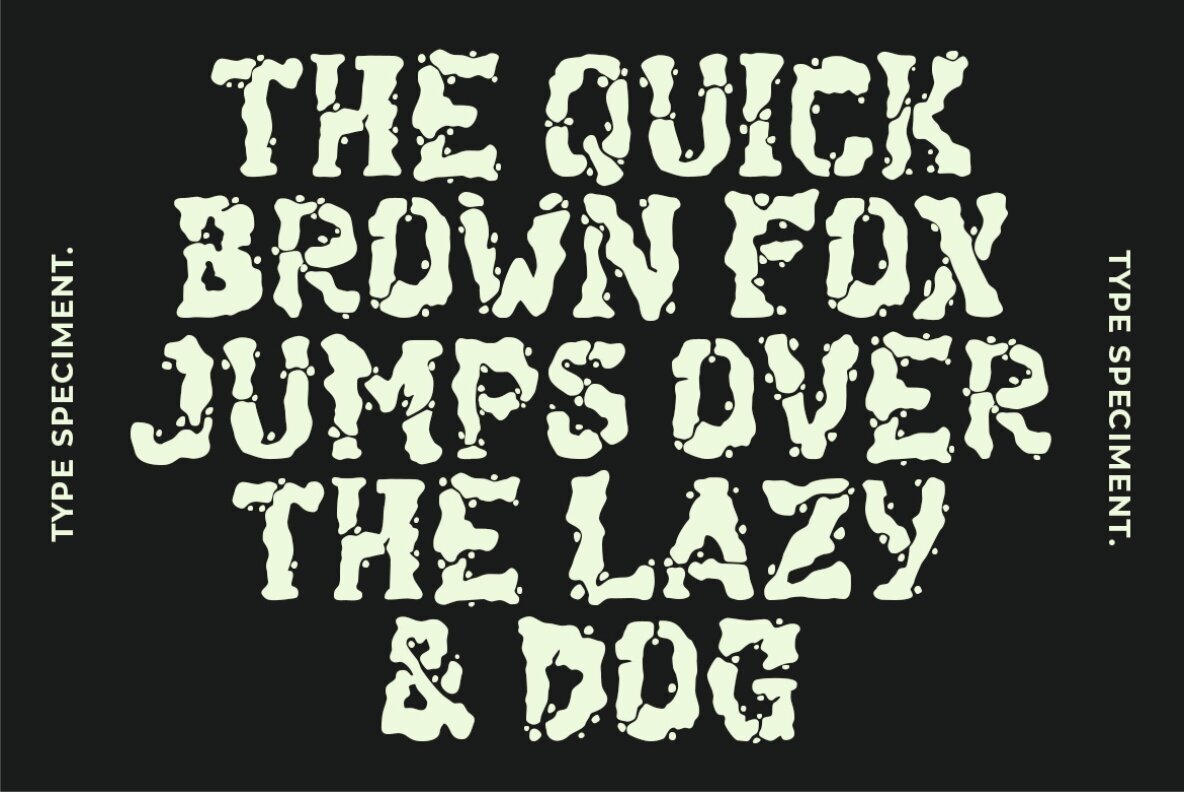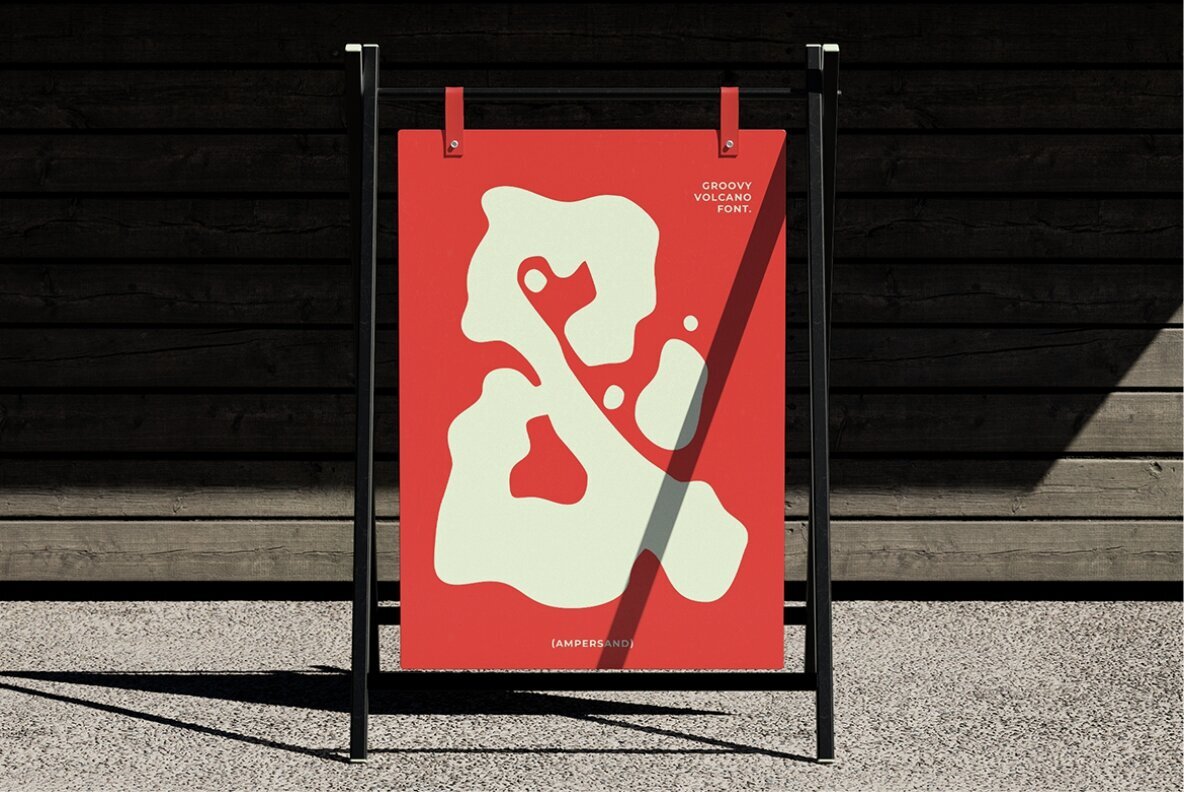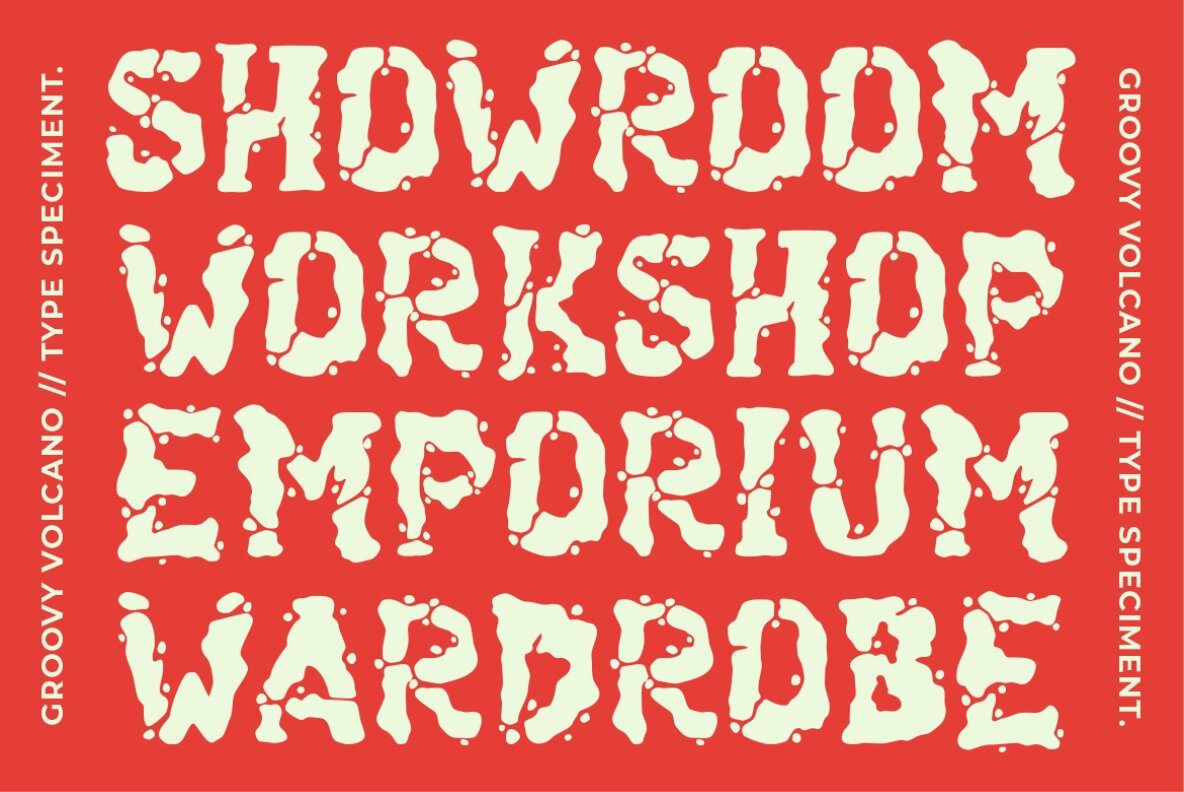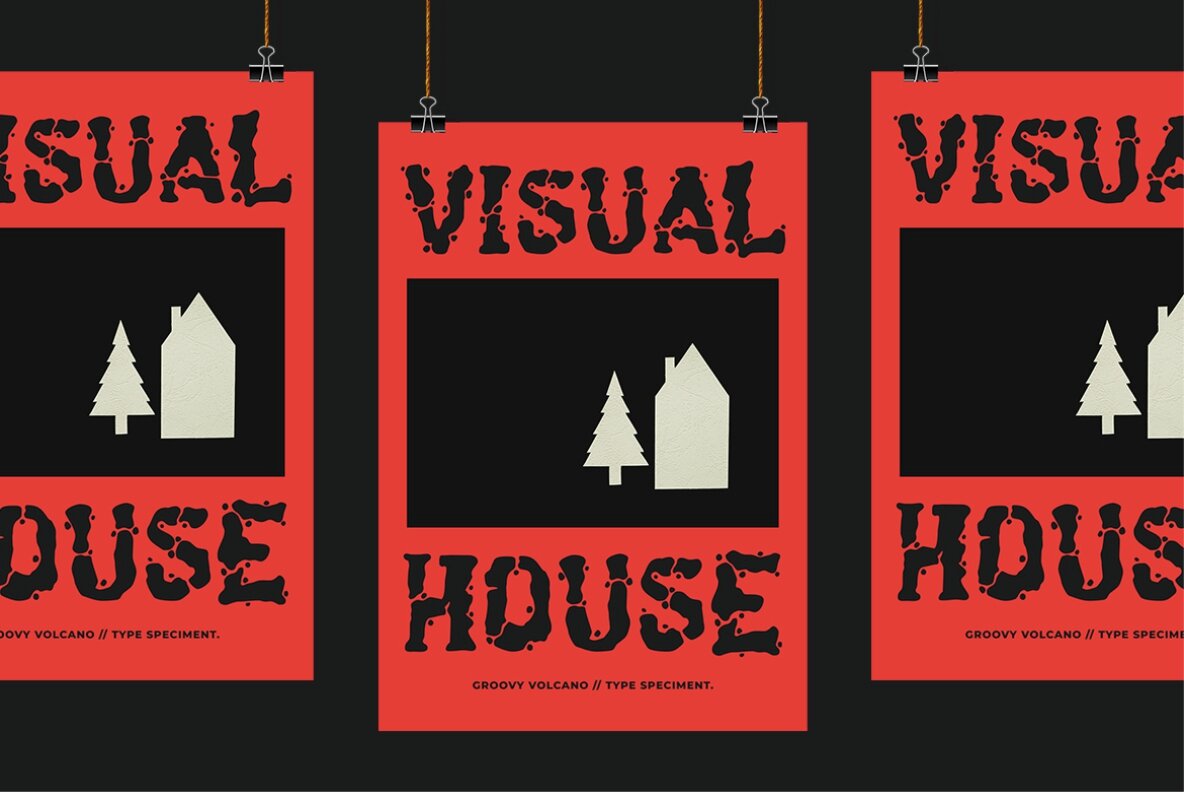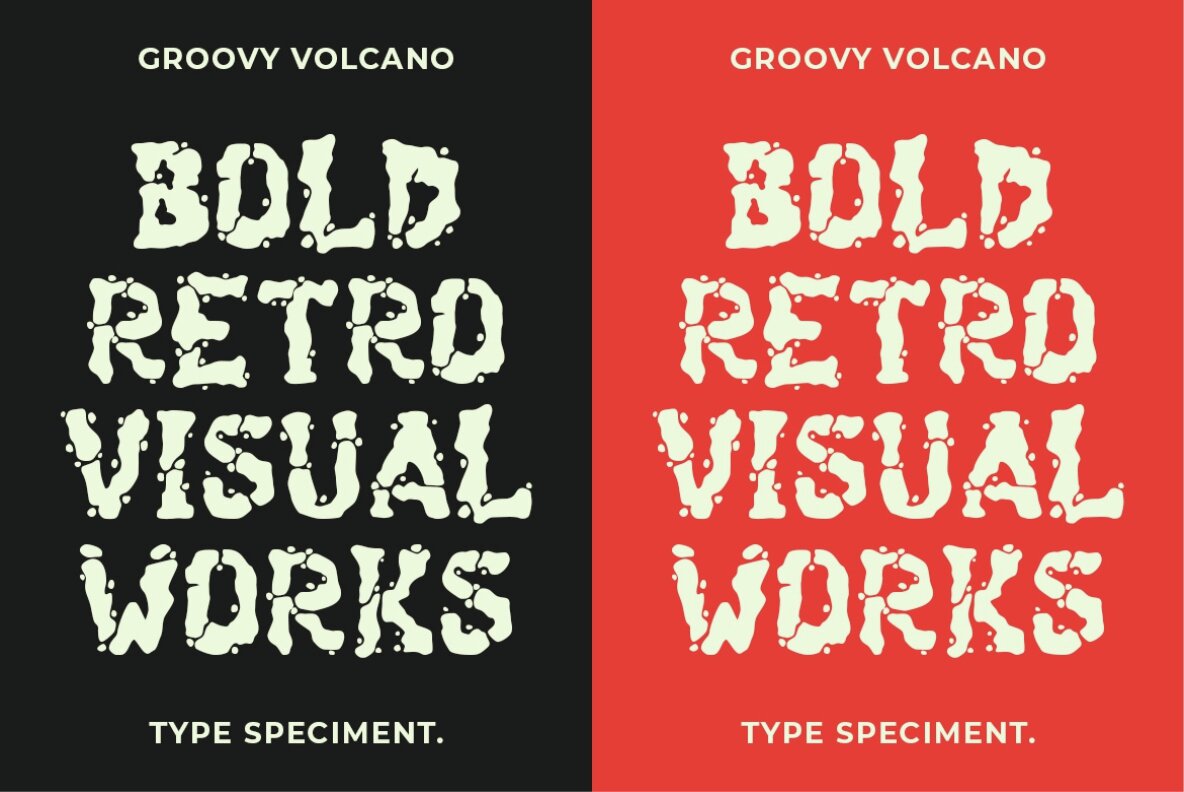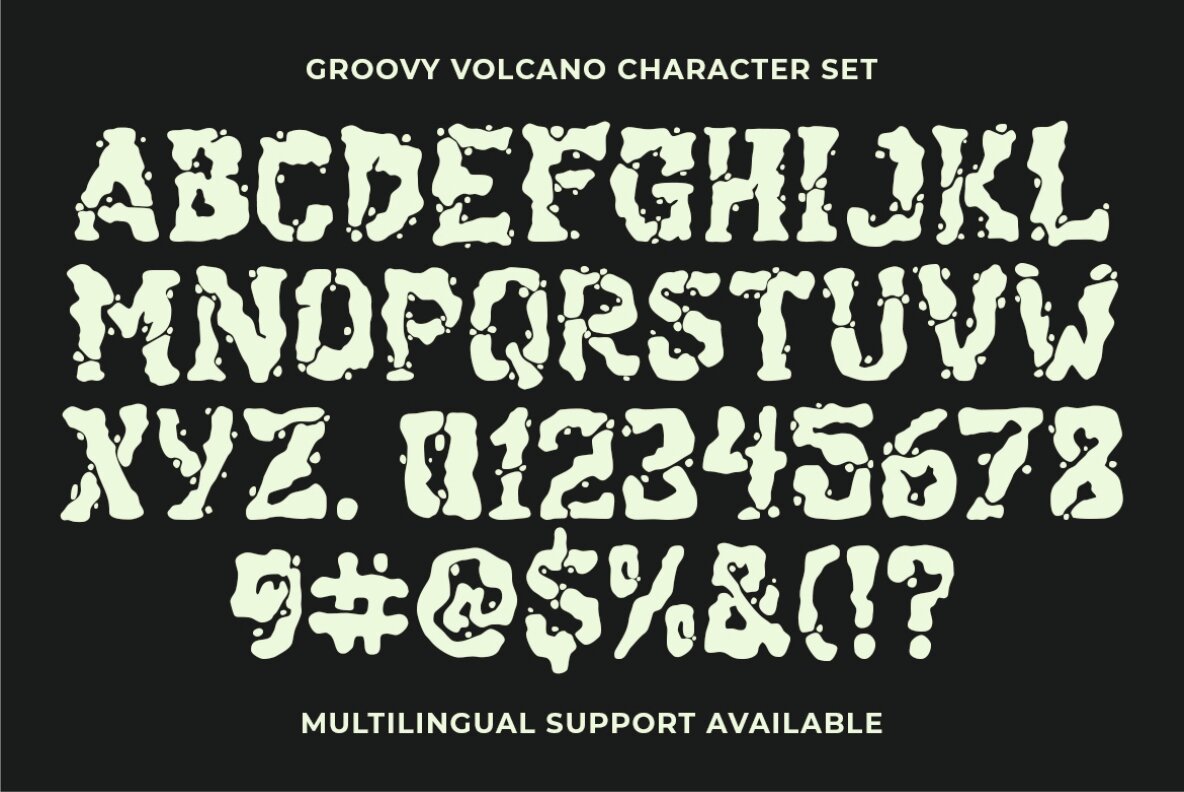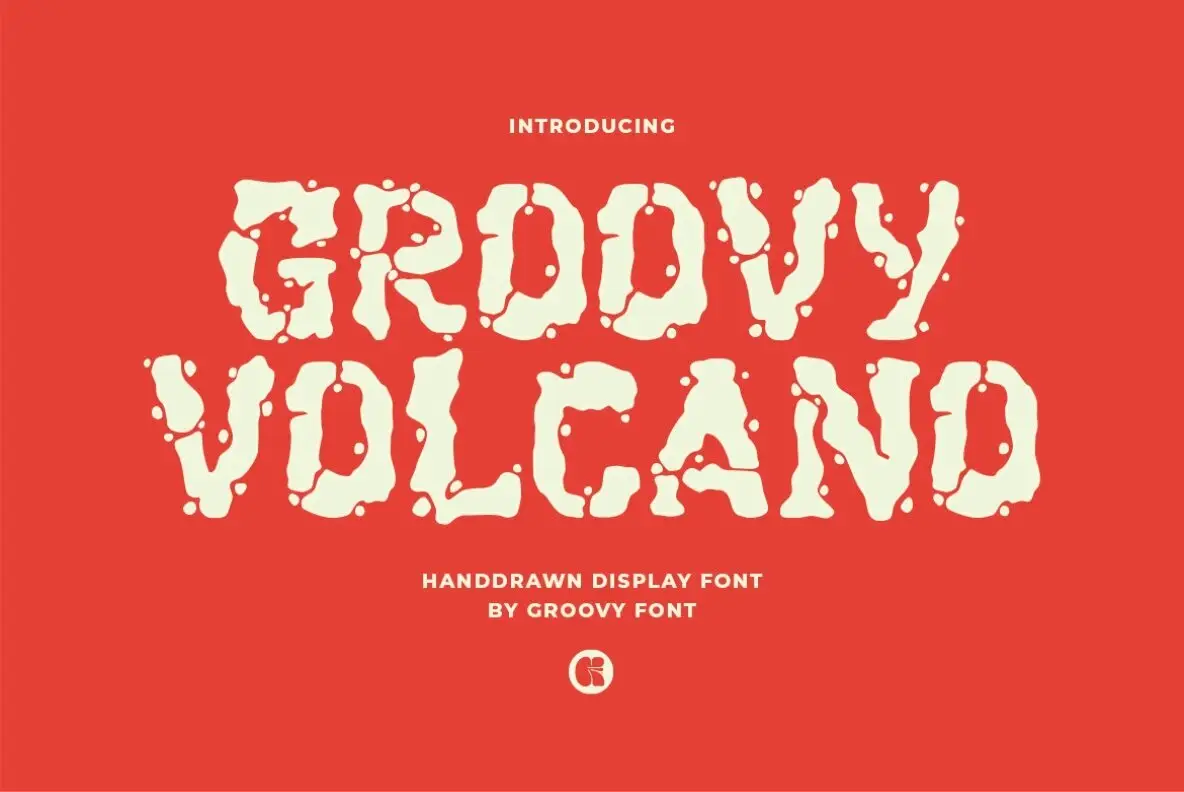
Groovy Volcano Font
Groovy Volcano
Groovy Volcano is a distinctive hand-drawn display font that captures the essence of rugged, cracked rocks or weathered walls. Its unique design makes it perfect for creating standout poster headlines and other striking design elements. The font's raw texture lends an organic and dynamic feel to your projects, making them memorable.
This font package includes a comprehensive set of characters, offering uppercase and lowercase letters, numerals, punctuation, and multilingual support. With Groovy Volcano, you can add an expressive and bold touch to your creative works, making them both eye-catching and versatile.